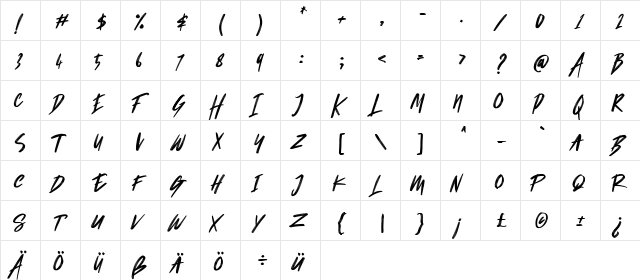
Starshy Regular
| Foundry | Creatype Studio Co. |
| Designer | Rian Rahardi |
Design Context for Starshy Typeface
Starshy is a composed and adaptable typeface that performs quietly and consistently across a wide range of design contexts.